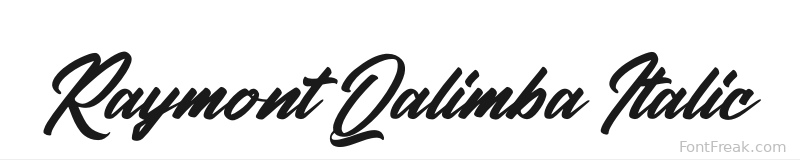
Raymont Qalimba Italic
Raymont Qalimba
About Raymont Qalimba Italic
Raymont Qalimba Italic is an elegantly crafted script font designed by Perspectype Studio in 2021. This font embodies a unique blend of sophistication and fluidity, making it perfect for a variety of creative projects. As a script typeface, it captures the essence of handwritten elegance, characterized by its graceful strokes and flowing curves. The font features a moderate stroke weight that provides a delightful contrast, adding visual interest while maintaining readability. The spacing between the letters is thoughtfully designed, allowing for harmonious flow, which enhances its aesthetic appeal.
This font is particularly well-suited for wedding invitations, where its romantic flair can set the perfect tone for the occasion. It also shines in branding projects, such as logos for boutiques or artisan shops, imparting a personal touch that resonates with customers. Additionally, Raymont Qalimba Italic is an excellent choice for restaurant menus, where its stylish yet legible design can elevate the dining experience. Content creators will find it ideal for social media graphics, as it can attract attention and convey personality in digital formats.
What sets Raymont Qalimba Italic apart is its ability to blend elegance with functionality. Its distinctive style captures the viewer’s attention while remaining easy to read, making it a standout choice for anyone aiming to leave a lasting impression. Whether used in print or digital formats, this font is sure to elevate your designs and engage your audience.